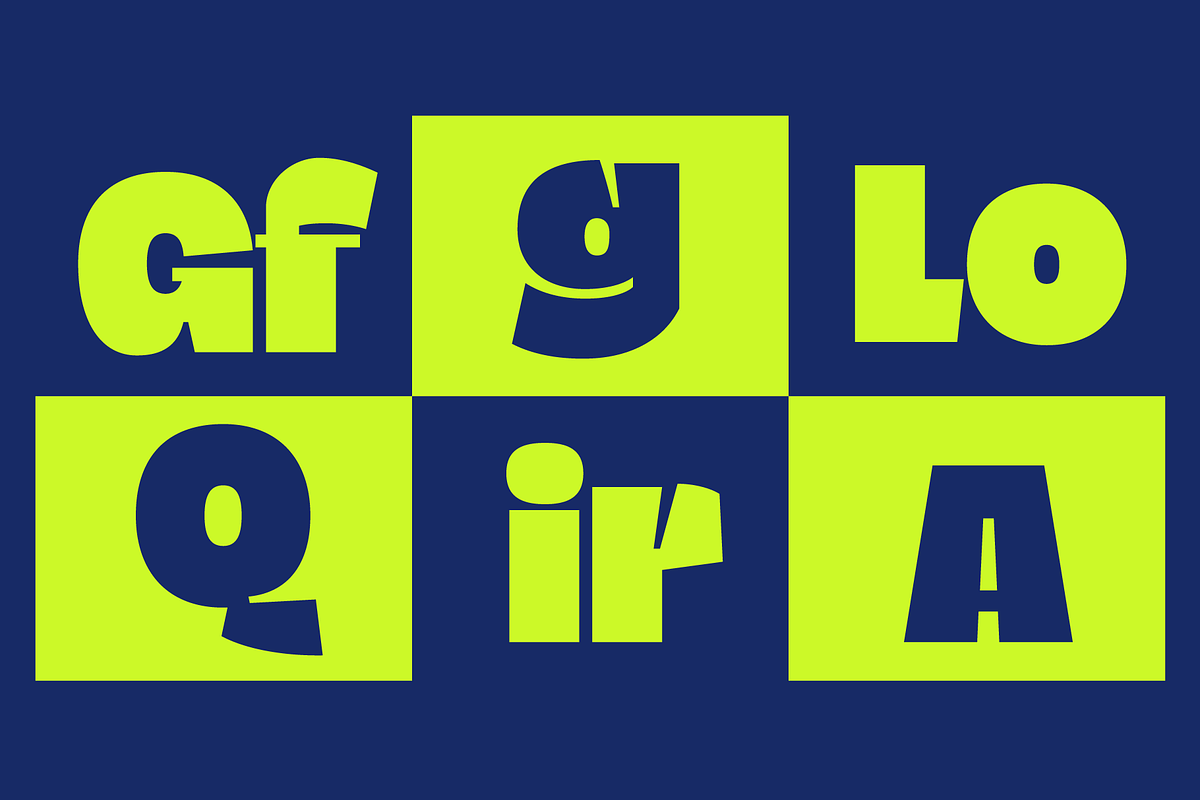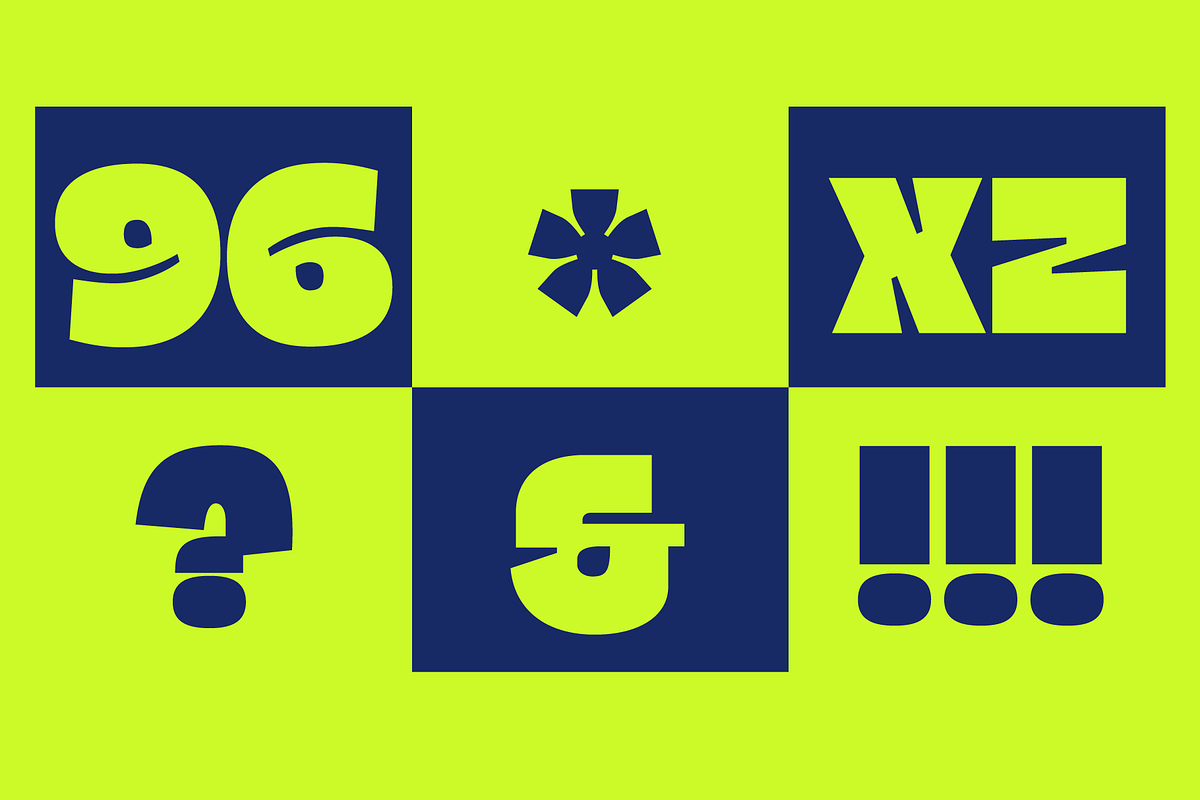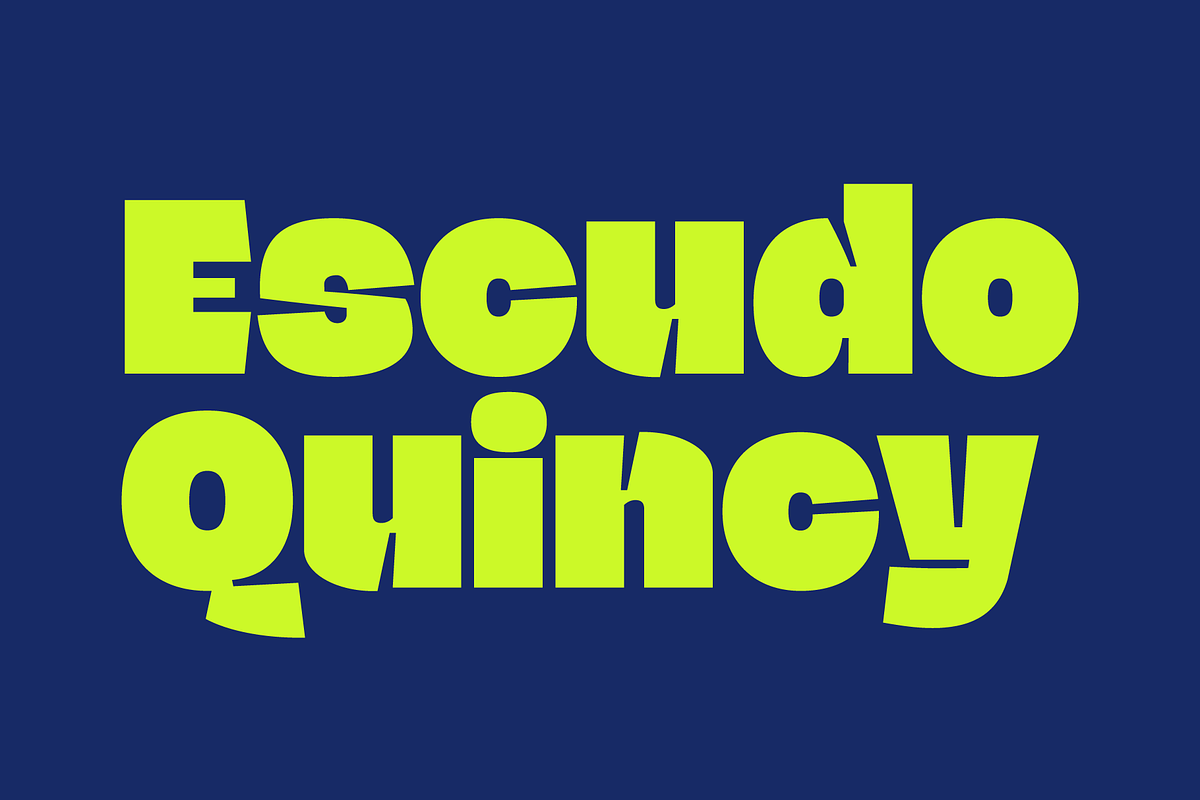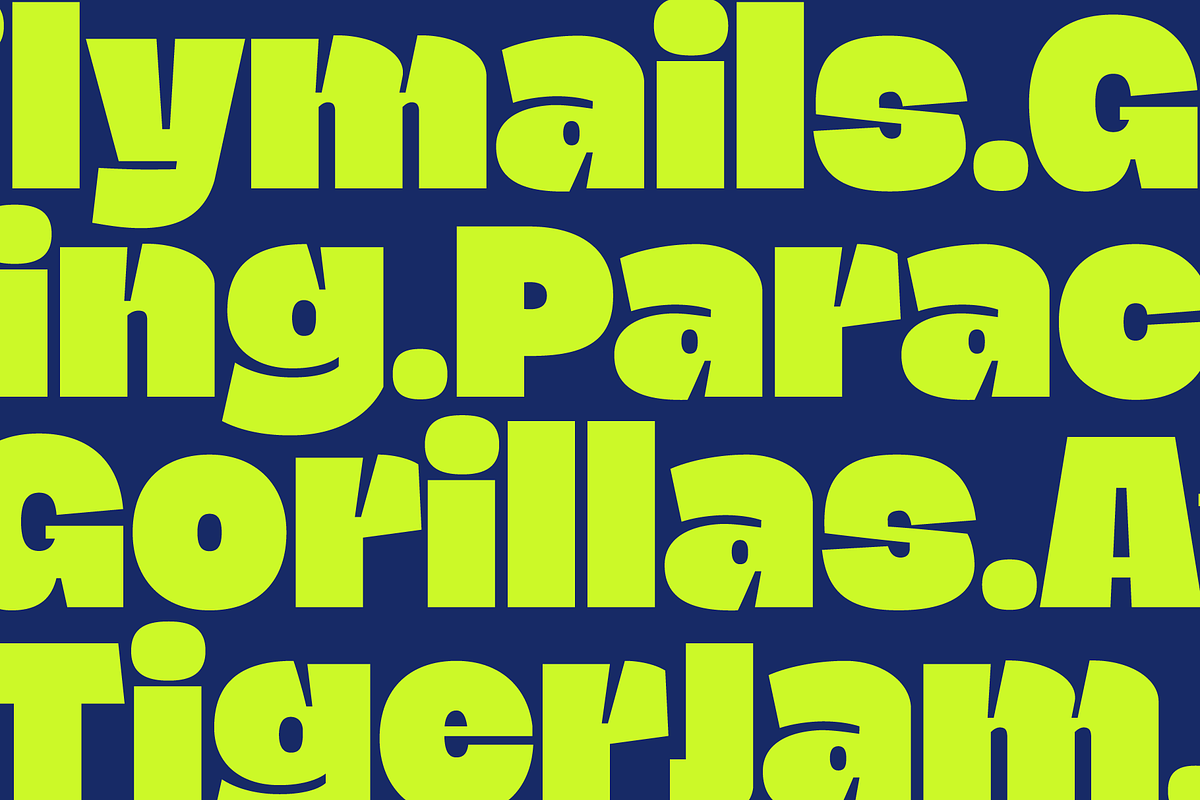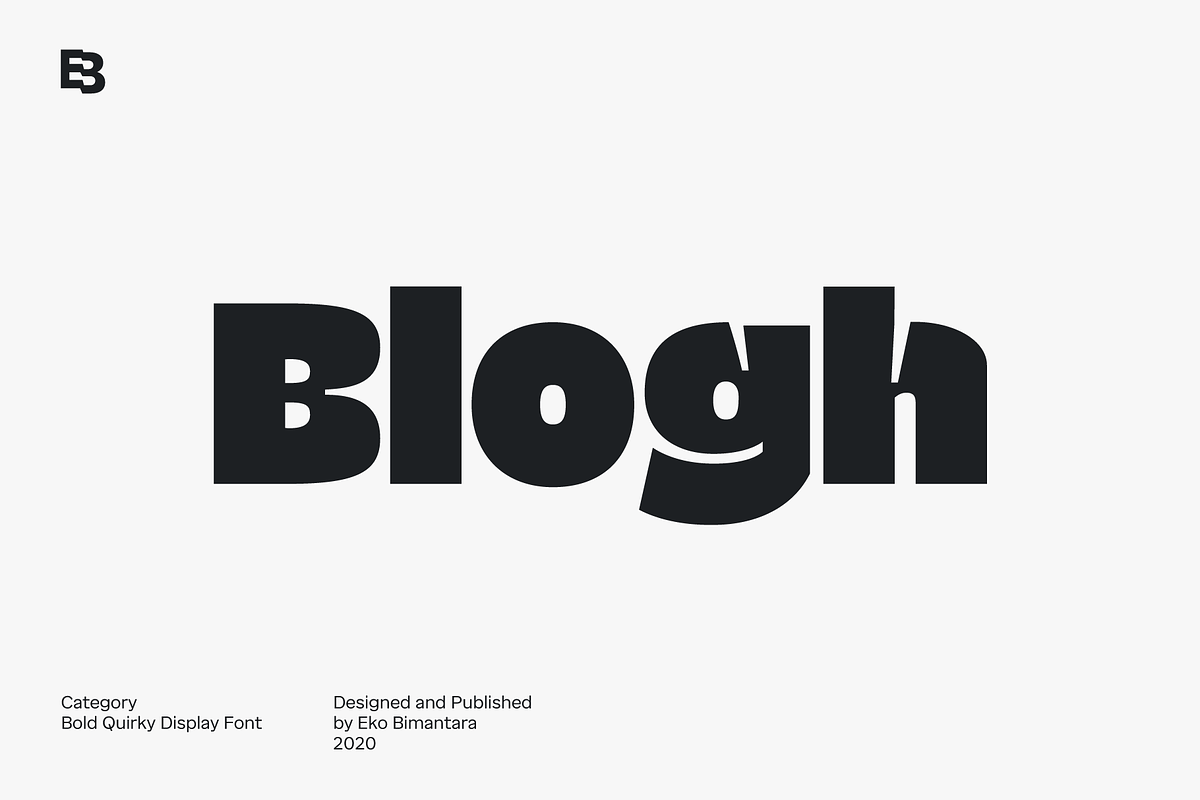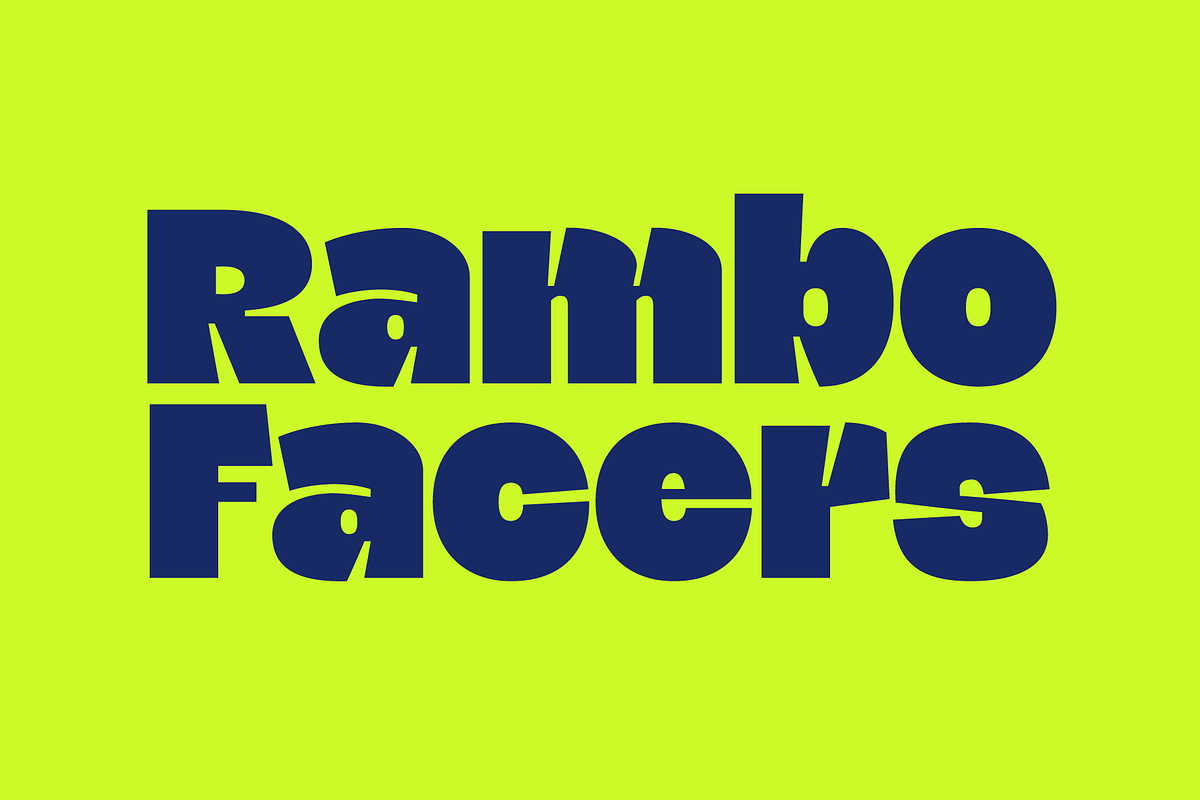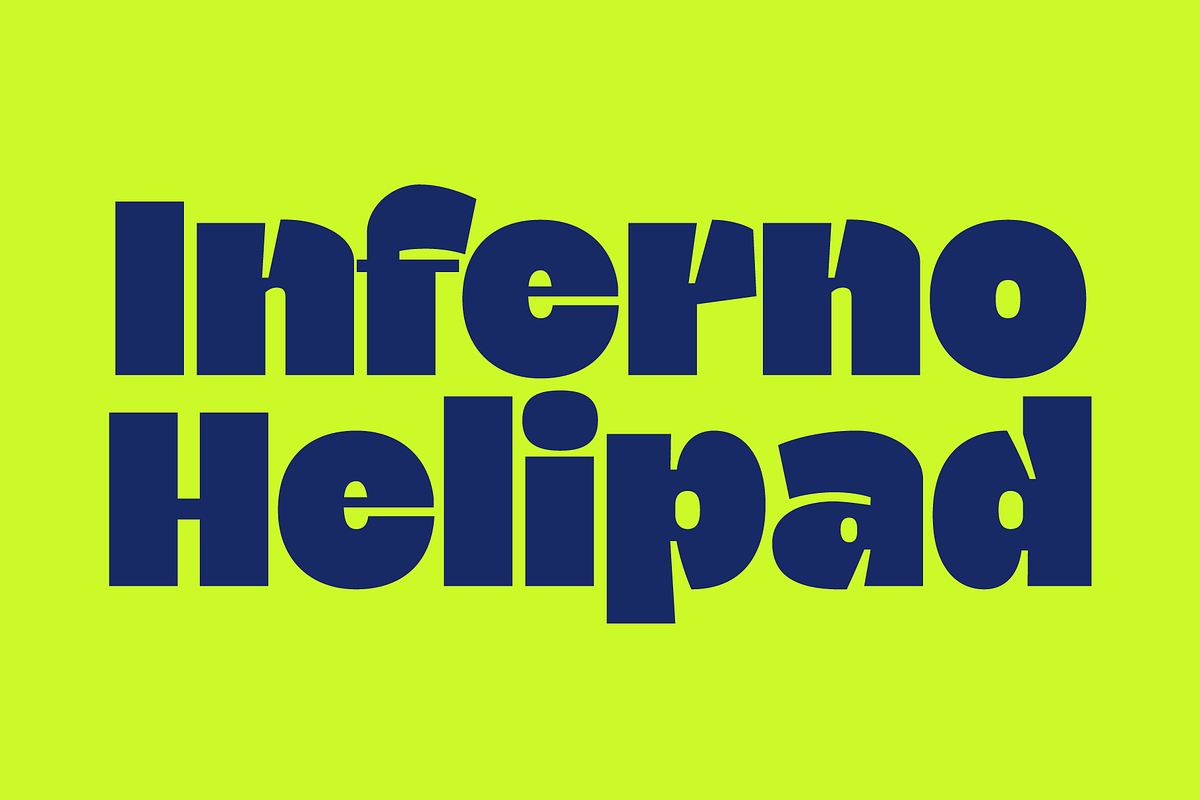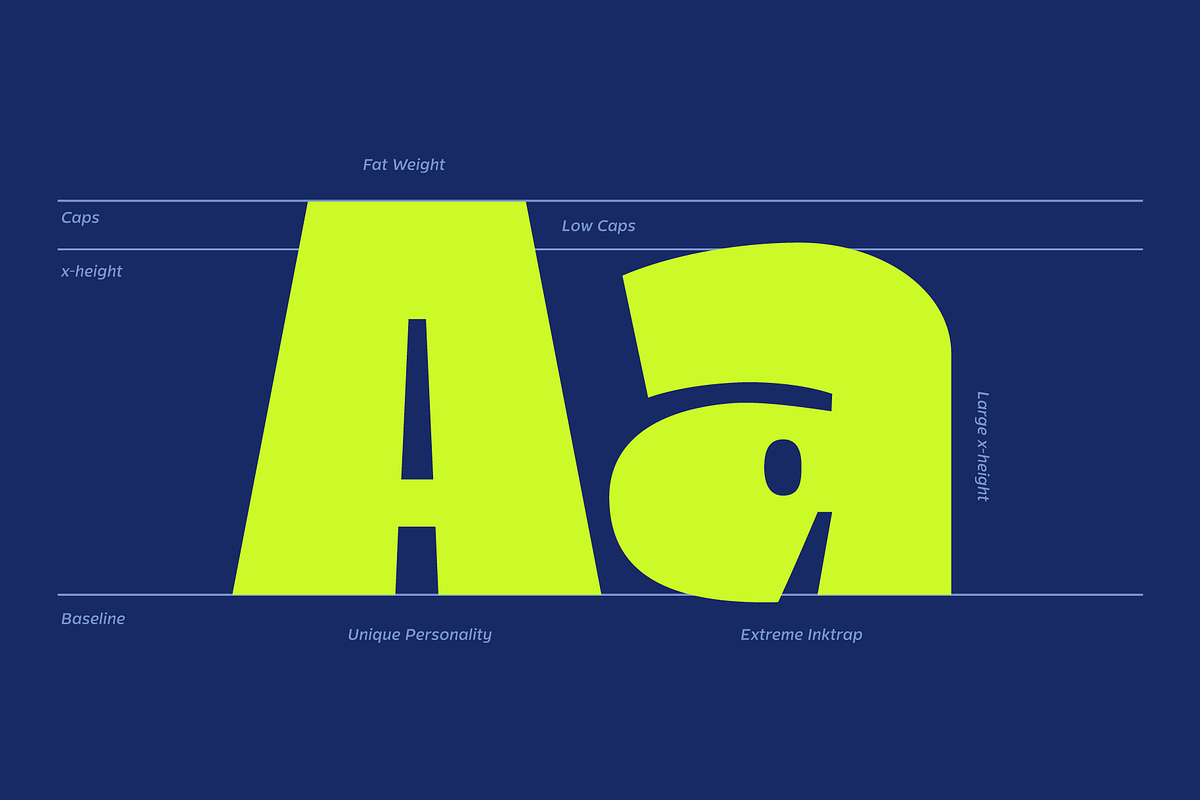
Blogh; Fat and Quirky Display Font
Blogh is fat and quirky display font. Its heavy weight and sturdy letterforms with characterized by extreme artificial inktrap, make it uniquely perfect for headlines and titles.